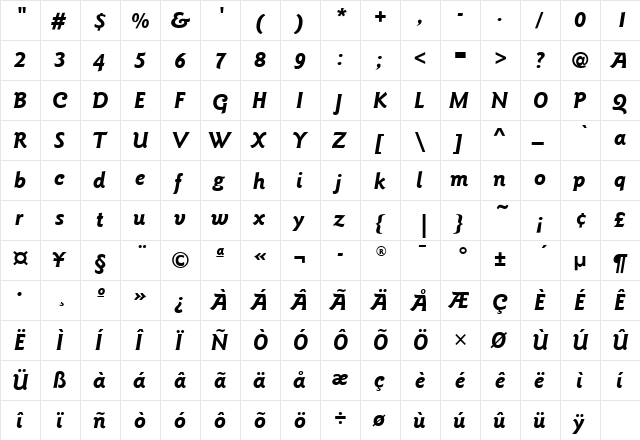
GoudySansITC Bold Italic Font Preview
Design Context for GoudySansITC Typeface
GoudySansITC takes a measured approach to typography — its balanced proportions and neutral character make it a reliable workhorse for both digital and print work. Its italic angle brings a sense of urgency and motion to the letterforms. The heavy weight commands attention and anchors typographic hierarchies.
Pro Tip: Use GoudySansITC for emphasis, pull quotes, and subheadings where its slanted energy can add rhythm to the layout.